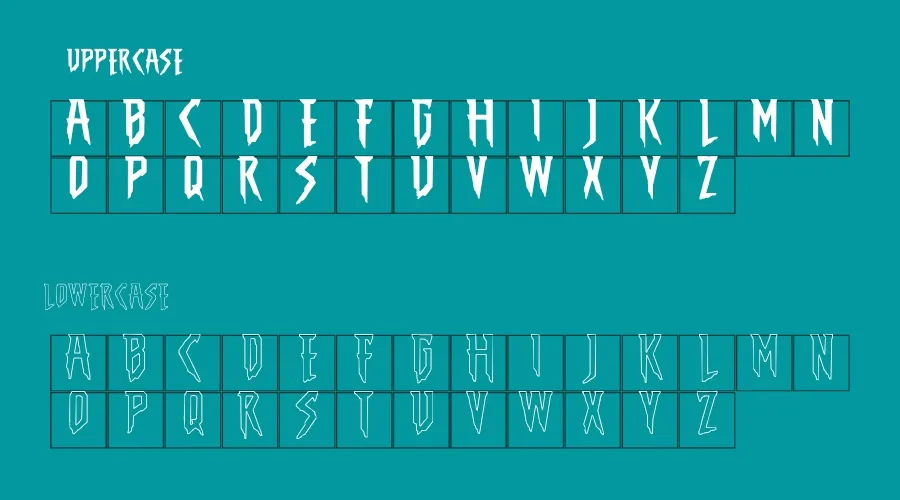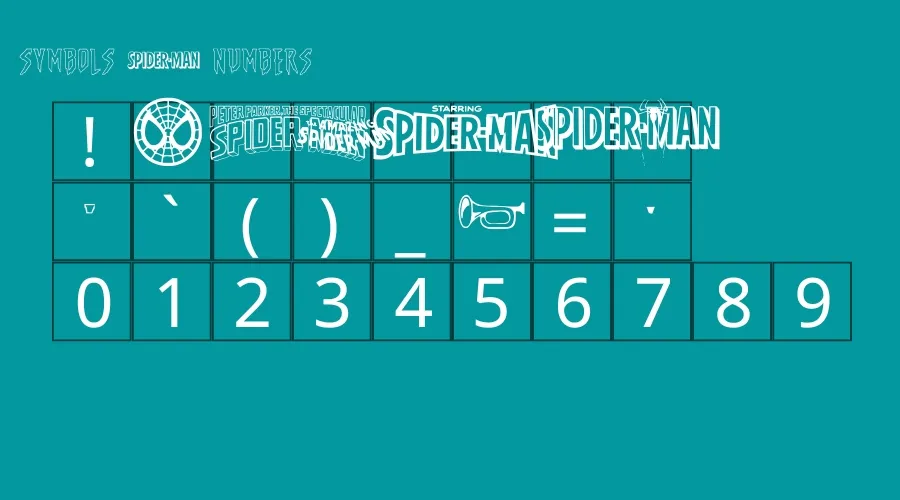
Spiderman Font
About Spiderman Font
Hmeneses is the creator of the spiderman font which is a movie font and its free version is available to download here. As well as having a readable texture and a unique appearance, this typeface is attractive. And is perfect for logos, branding projects, homeware packaging, and all sorts of other lovely ventures that require a beautiful look.
As a result, your text and designs can be styled in an eye-catching manner. With this typeface, you can create charming and impressive designs.
You can get the biggest results by picking out this typeface from the family. Presentations, reports, banners, posters, content, product titles, etc.
Are all suitable for this font the generator tool of this typeface is used in graphic design projects. this typeface is often used to create stunning and readable results. It can be used anywhere where you want to create a new signature.
There are a lot of corporations and organizations that use this typeface. Various institutions can use this font to create their logos. This typeface can be used for a wide range of projects, including eBooks, posters, brochure layouts, and much more.
A lot of web designers, as well as graphic designers, used this attractive typeface for many projects, including in fashion magazines, newspapers, ads, and articles.
Its design can be used to create interesting covers, shop names, logos, and logos for shops, stores, and websites.
As well as branding projects, houseware designs, packaging, or even simply as an attractive text overlay on any background image, the typeface is suitable for all types of projects.
The text style may be an awesome choice for any plan that needs an advanced and modern textual style. You’ll be able moreover to utilize this typeface as a copy-paste work. This makes it a clean and clear lettering style.
This typeface contains interesting glyphs which allow it a cutting-edge sleek look. You’ll be able to have this typeface into a CSS record for creating eye-catchy website content.
Is Spiderman Font great to use?
This typeface is perfect for body content. In expansion, it is right for any plan ventures such as advertisements, site layouts, social media posts, brands, items, cites, cards, and a bounty of more plans.
What kind of generator tool is Spiderman Font?
For the fast creation of realistic plans, it is an exceptionally idealized instrument. You’ll be able to make numerous plans effectively.
Does Spiderman Font have great readability?
The Spiderman font has unbelievable meaningfulness. It may be an exceptionally flexible textual style that can be utilized for numerous purposes.